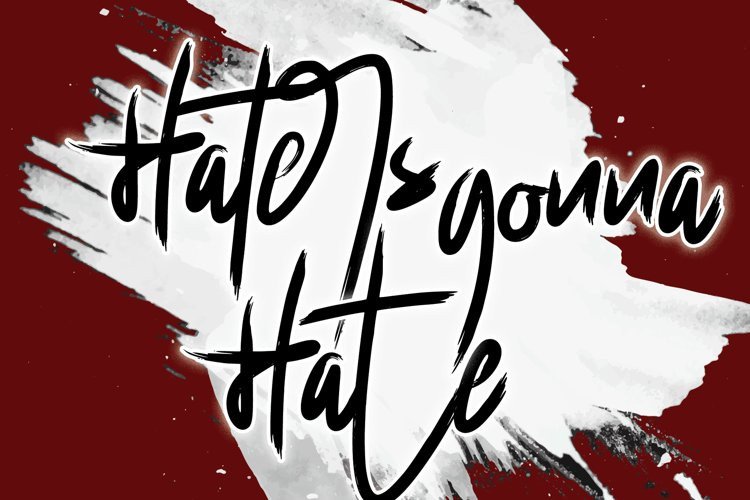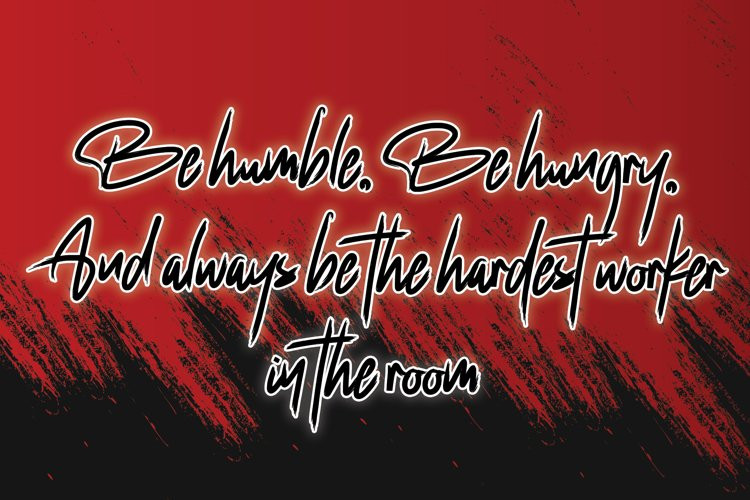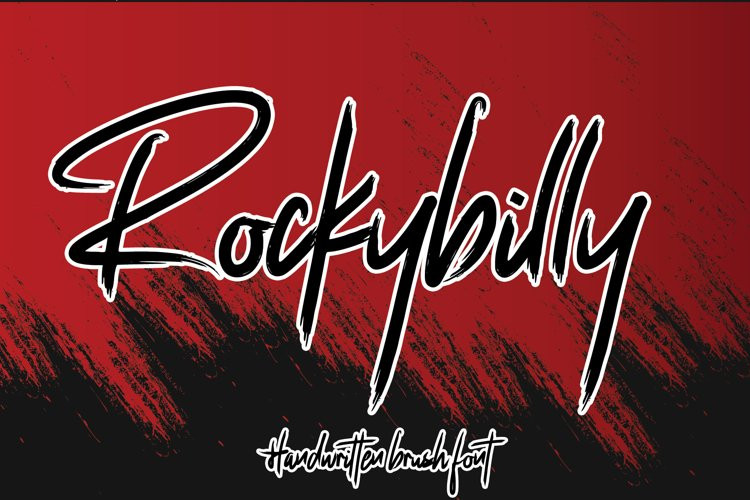
Rockybilly Font
Rockybilly font is a super handwritten brush font bursting
with energy. It features extra attention to quick strokes and sharp details.